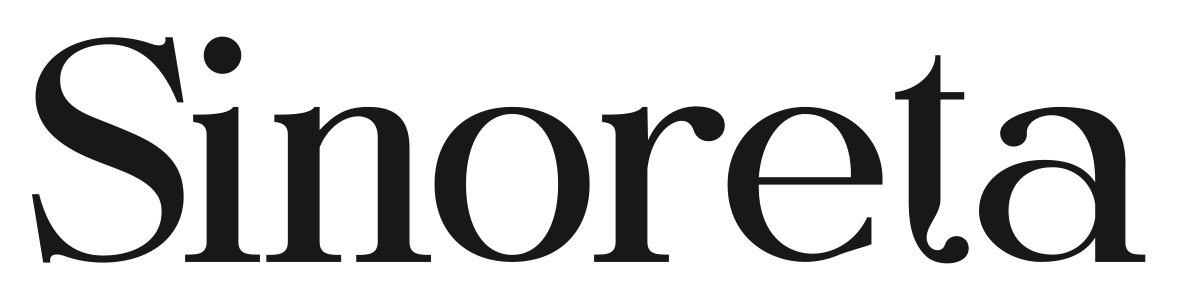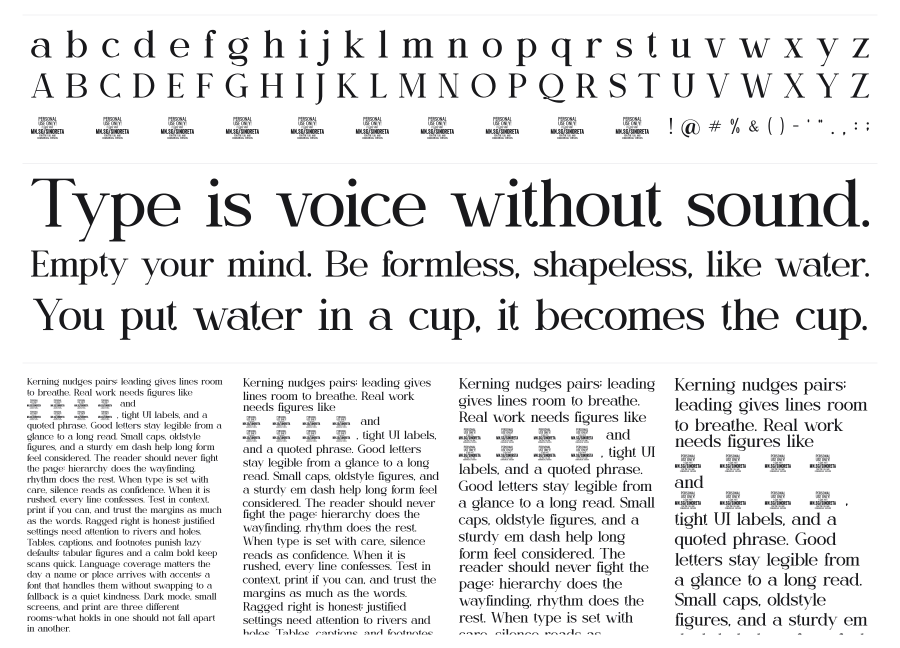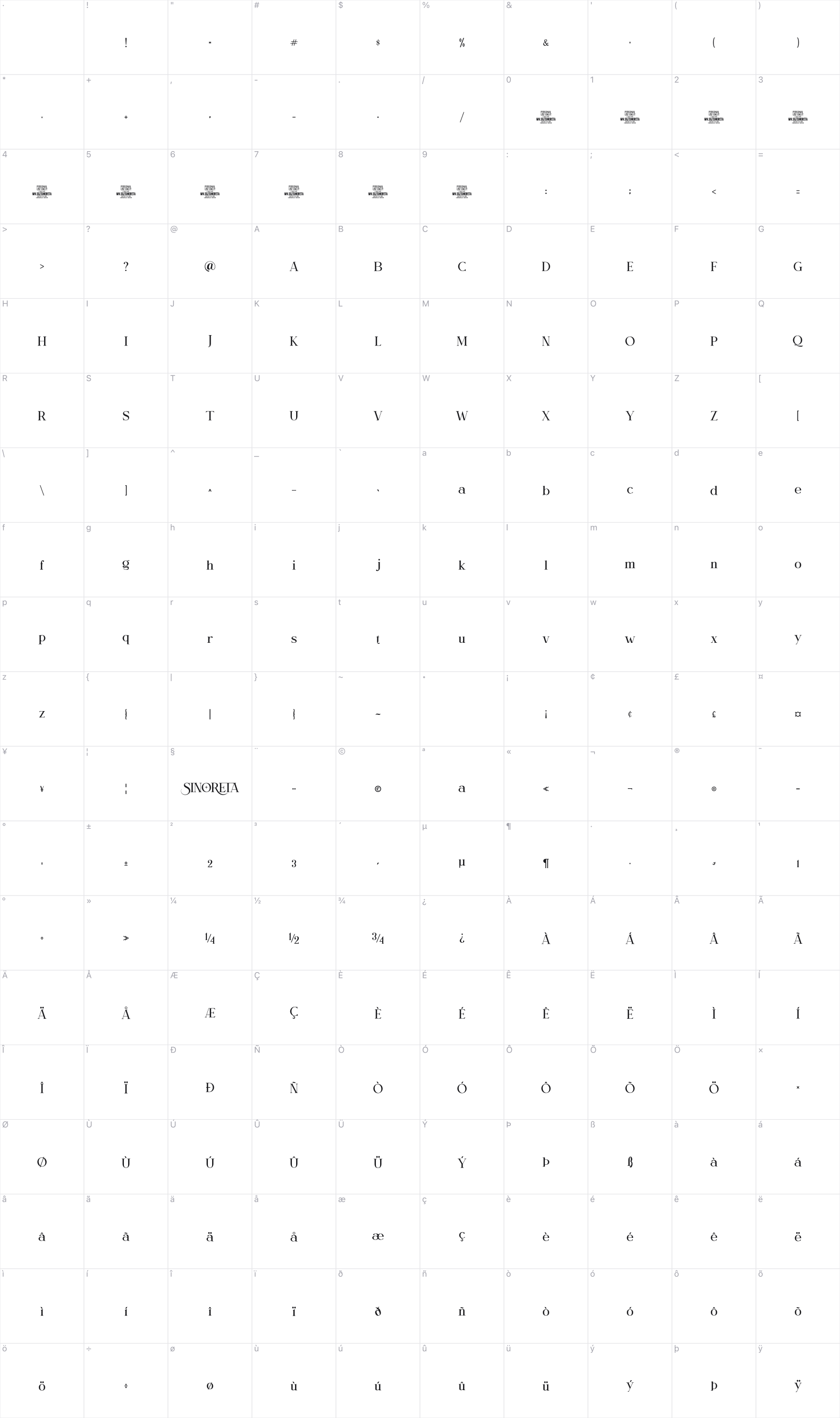
Sinoreta
Sinoreta is a high-contrast modern serif by Mans Greback with the dramatic thick-thin stroke contrast of Didone tradition, given a retro-inflected elegance. Wide, open characters and refined hairline serifs make it a strong choice for editorial headlines, luxury branding, and logotype work. The family includes Regular, Italic, Bold, and Bold Italic with OpenType alternates and ligatures for additional typographic control.